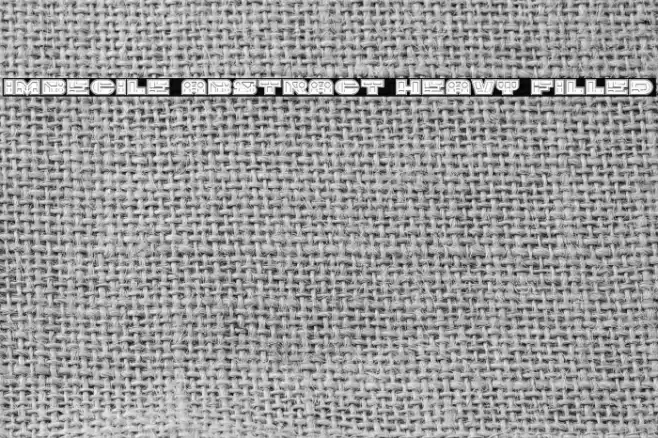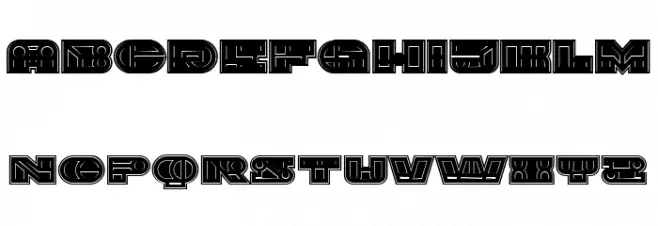
Imbecile Abstract Heavy Filled Font
Imbecile Abstract Heavy Filled Description
This font features a bold, abstract design with heavy, filled characters. Each letter is uniquely crafted with intricate patterns and geometric shapes, creating a striking visual impact. The uppercase letters are particularly distinctive, with a strong presence and artistic flair. The font's style is both modern and decorative, making it suitable for projects that require a bold statement. The characters are evenly spaced, ensuring readability despite their complex design. This font is ideal for creative projects where a unique and eye-catching typeface is desired.
A bold, abstract font with heavy, filled characters and intricate geometric designs from Uncategorized fonts.
- Proposed Projects: Ideal for posters, album covers, branding, and any project needing a bold, artistic touch.
- Overall Style: Modern, Decorative